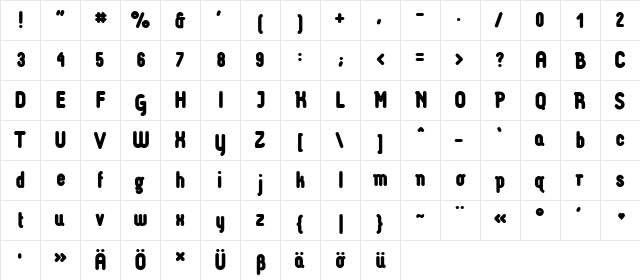
Luco Sans 923
Design Context for Luco Sans Typeface
Luco Sans offers clean, dependable letterforms without strong stylistic allegiance, making it a practical choice for designers who need flexibility.